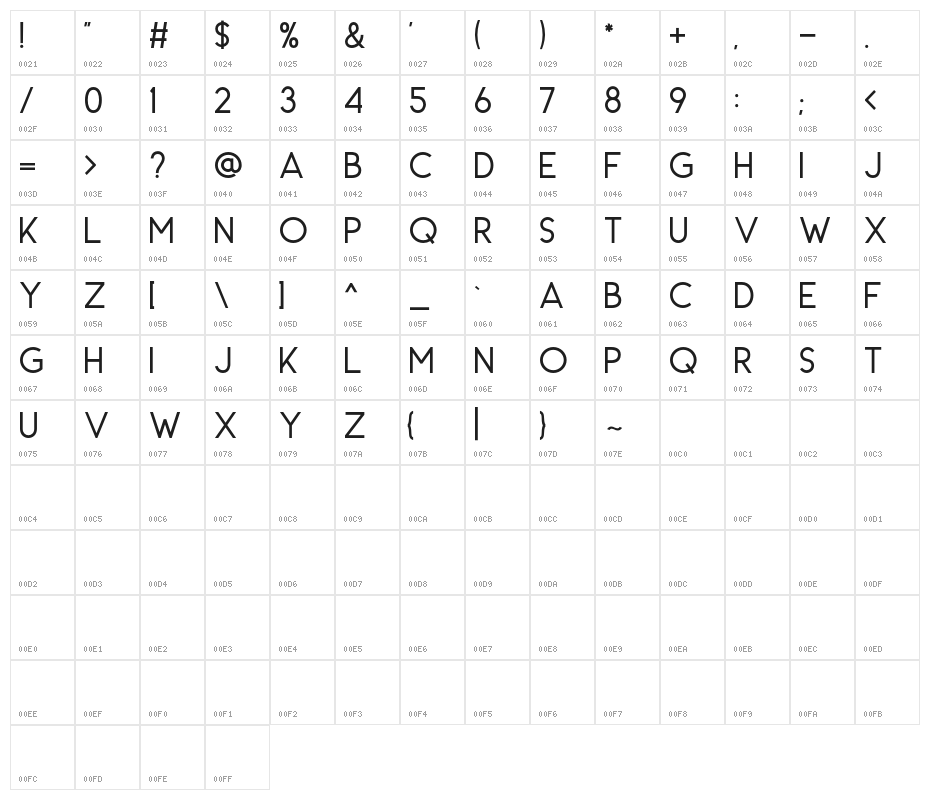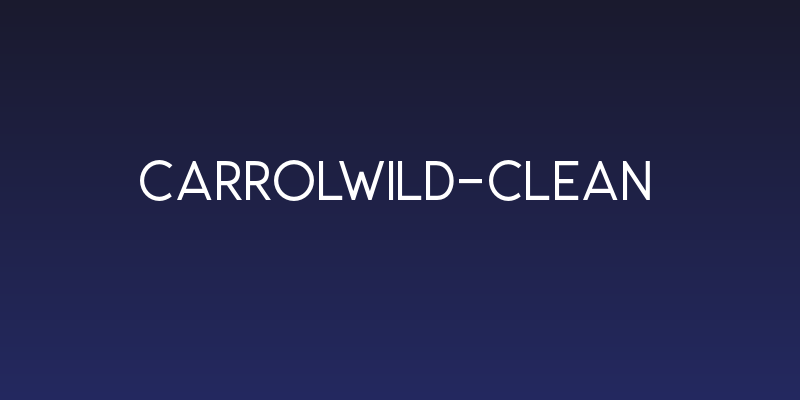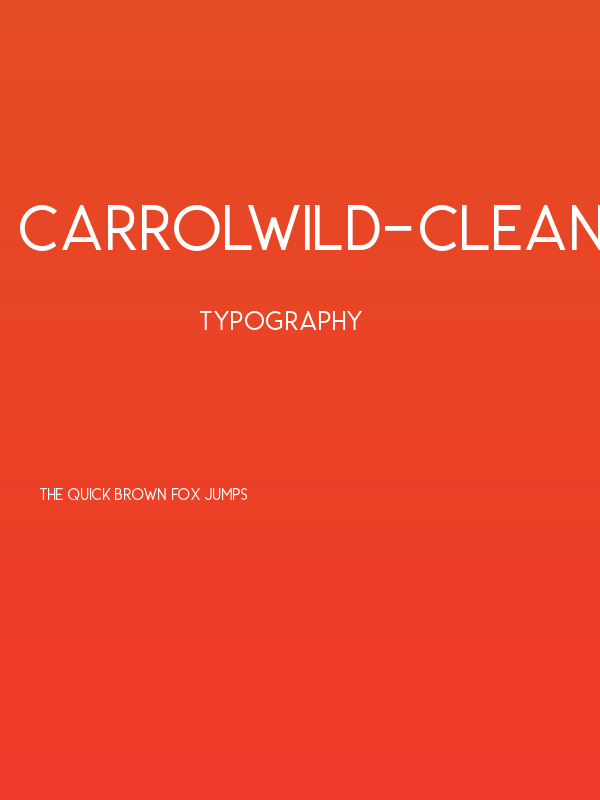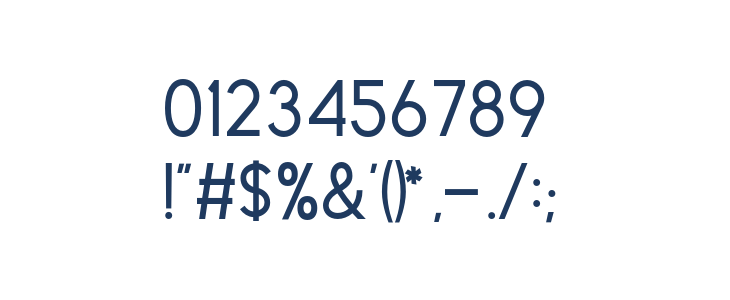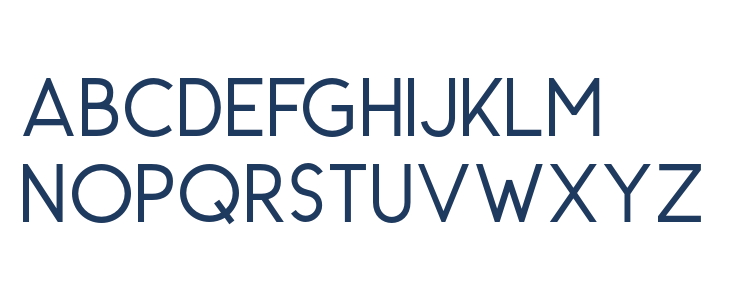
CarrolWild-Clean Font
CarrolWild-Clean Description
This font features a clean and modern sans-serif design with uniform stroke widths, giving it a sleek and contemporary appearance. The characters are well-proportioned with a geometric influence, evident in the circular shapes of the 'O' and the symmetrical structure of letters like 'A' and 'M'. The numerals are clear and distinct, maintaining the same geometric style as the letters. Special characters are designed to match the overall aesthetic, ensuring consistency across all glyphs. The font's simplicity and clarity make it highly legible, suitable for a variety of applications.